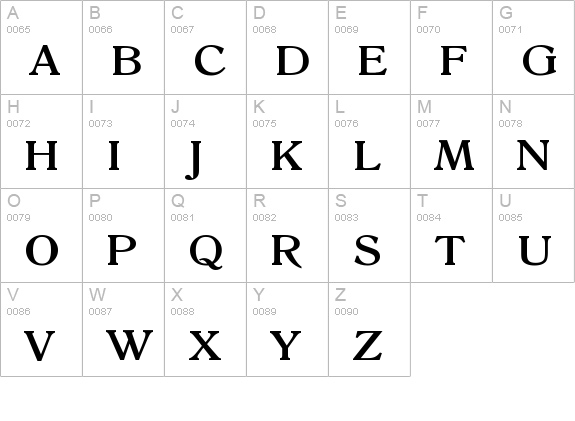
Roomy Wide Bold Font Details
Roomy Wide Bold is a strong, high-contrast, extended-width variant in the Roomy typeface family \xE2\x80\x94 well suited to headlines, attention-grabbing titles, and strong calls-to-action.
Introducing Roomy Wide Bold font, a modern and eye-catching typeface designed to make a bold statement in your projects. With its spacious lettering and distinctive wide characters, Roomy Wide Bold is perfect for creating impactful headlines, posters, logos, and more. This versatile font exudes confidence and style, making it ideal for a variety of design applications. Whether you're looking to add a touch of contemporary flair to your branding or make a striking statement in your print materials, Roomy Wide Bold is sure to impress. Best of all, Roomy Wide Bold is available for free download at FontsMarket.com. This means you can start using this impressive font in your designs right away, without having to worry about any additional costs. Don't miss out on the opportunity to elevate your projects with the dynamic and expressive Roomy Wide Bold font today.